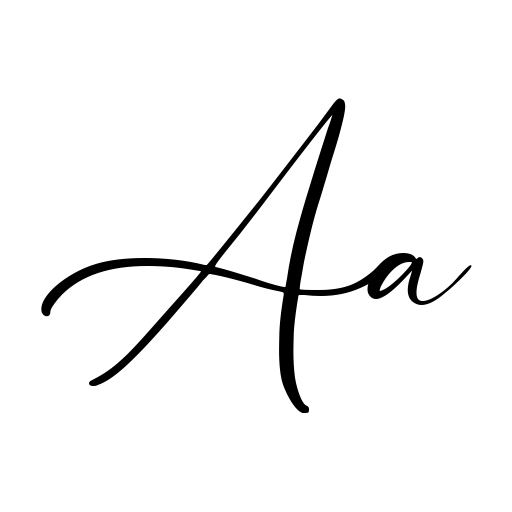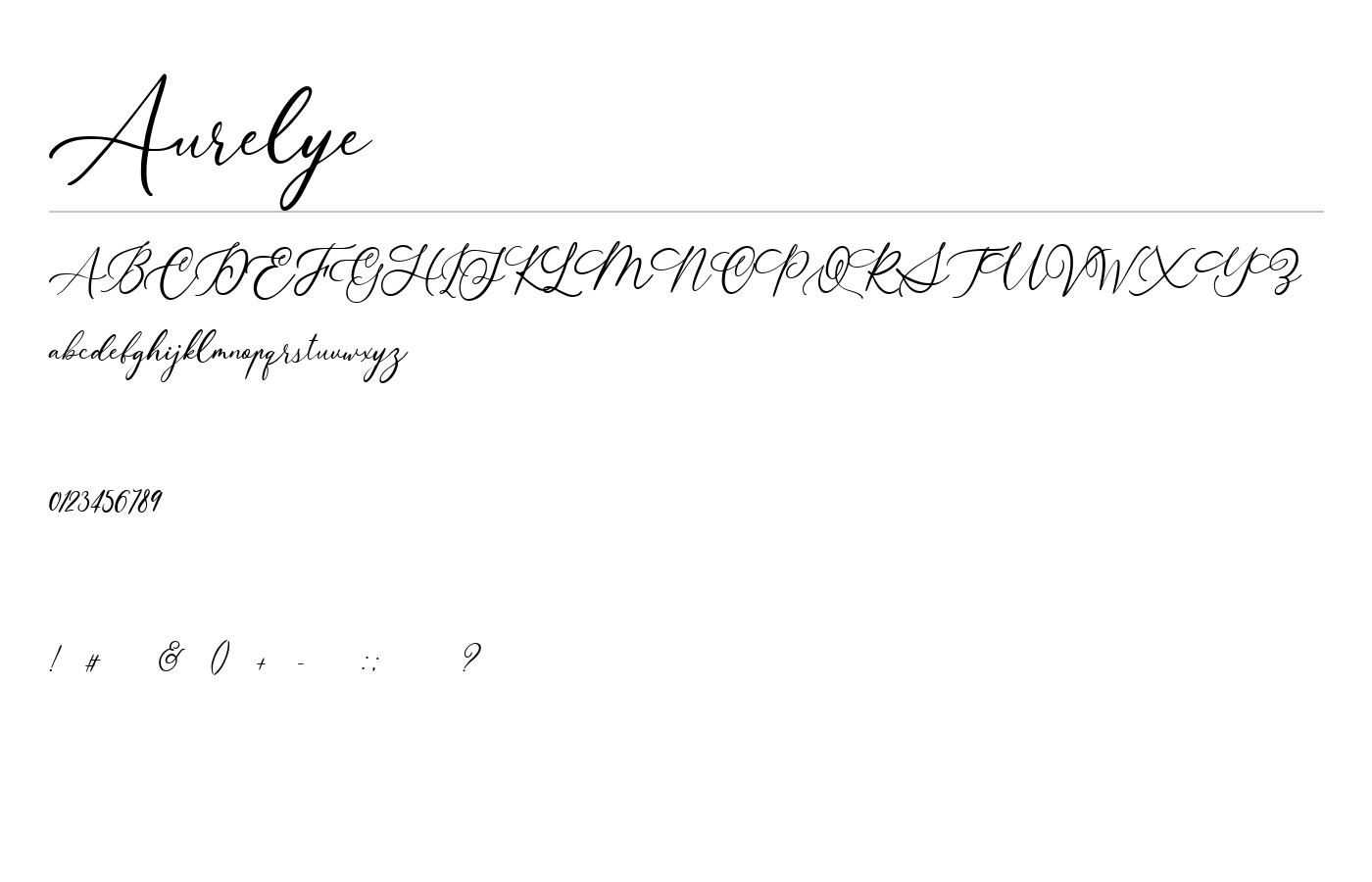
Aurelye is an elegant script font characterized by its delicate, flowing strokes and refined, handwritten style. Its slender, slightly varied line weight and graceful curves give it a sophisticated and personal feel, making it ideal for luxury branding, wedding invitations, and stylish editorial work. This font stands out in contexts that require a touch of elegance and artistic flair, especially in headlines or decorative accents.
Aurelye Font
About Aurelye Font